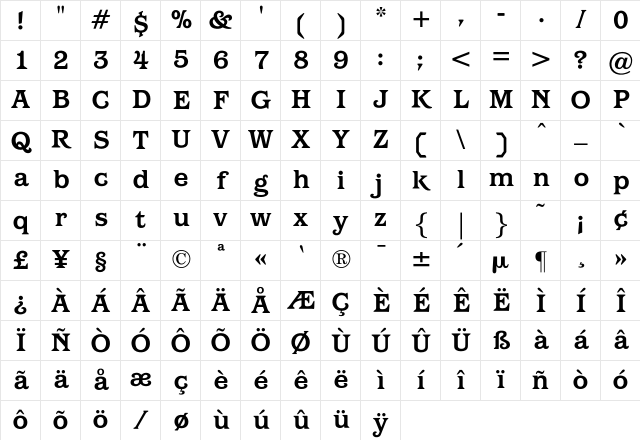
OPTIBarMay-Bold Regular
Design Context for OPTIBarMay-Bold
OPTIBarMay-Bold is a composed and adaptable typeface that performs quietly and consistently across a wide range of design contexts. Its bold stroke weight gives it real presence on the page.